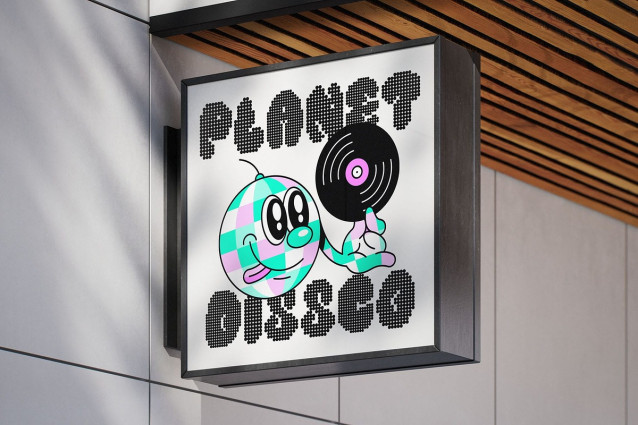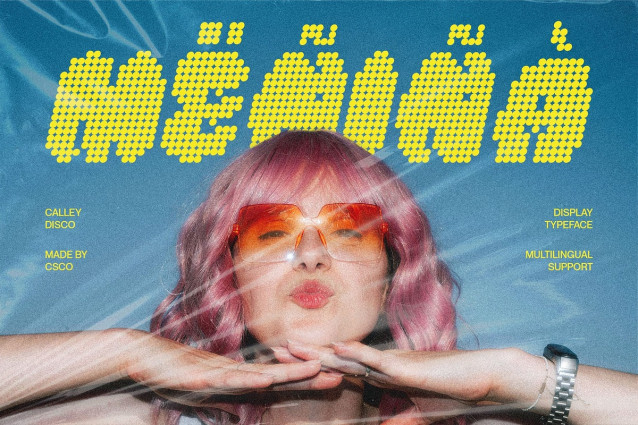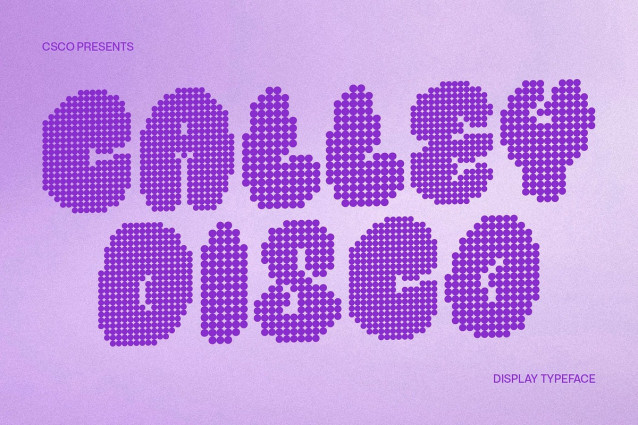
Calley Disco Font features bold, bubble-like letterforms that radiate fun and energy. Its rounded shapes create a playful, approachable vibe, making your designs instantly eye-catching, memorable, and full of personality. Its playful appearance works perfectly for projects aiming to radiate fun, joy, and creativity.
Disco Flair for Dynamic Appeal With a sparkling disco effect, each character of this display font gains rhythm, glamour, and movement. This lively visual detail adds excitement, making your text vibrant and full of personality, perfect for grabbing attention in any creative context.
Energetic and Cute Vibe The combination of bold weight, rounded forms, and disco style gives Calley Disco a cheerful, cute, and energetic aura. It brings a sense of joy and playfulness to any creative project. It’s perfect for designs that aim to feel lively, dynamic, and playful, while maintaining a stylish and modern look.
Perfect for Creative and Party Designs Calley Disco is ideal for posters, branding, music designs, party events, or any project that wants to convey fun and liveliness. Its unique style ensures your design stands out, attracting attention while maintaining a bold, stylish, and entertaining look.